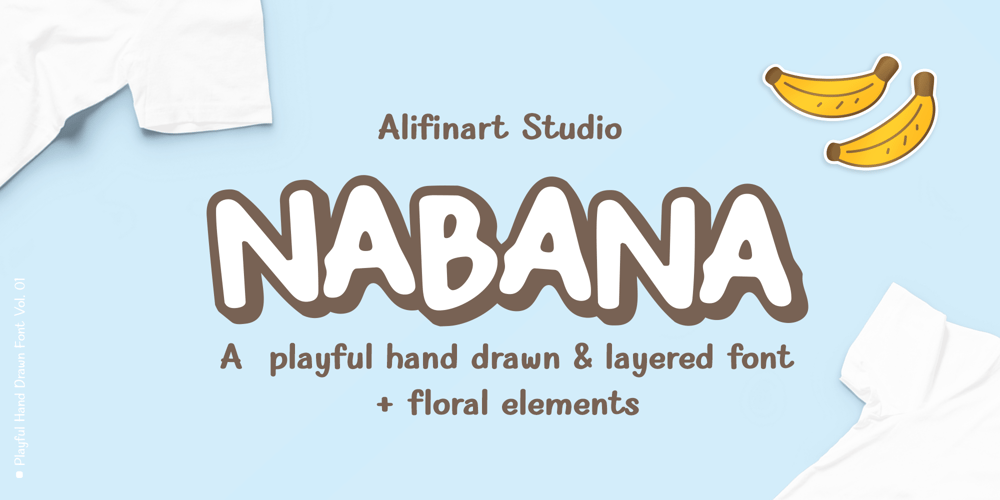
Nabana Font Family was designed by Alif Nuryasin and published by Alifinart Studio. Nabana contains 33 styles and family package options. Nabana is a quotable sans serif font that offers a relaxed, comfortable and informal feel. This font is inspired by the packaging of environmentally friendly products, as well as from book covers for children.The first impression when you see this font is a sense of joy and fun. Moreover, this font package also includes a variety of floral element designs that are very harmonious when used together.Instructions:For complete details, please visit my Behance profil.